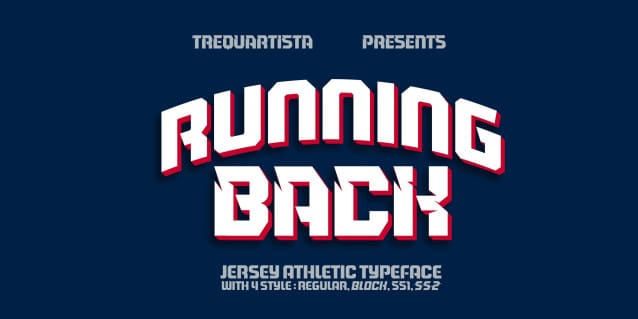
Running Back Font
Running Back Font with sans serif and matching italics. This typeface has a clean and athletic look, glyphs and extensive Latin script support. Flick is bold, vibrant with sharp sans serifs and competitive appearance, therefore excellent to use for headers, logos, captions and posters, especially for the sports branding industry, but just as good for any other projects.